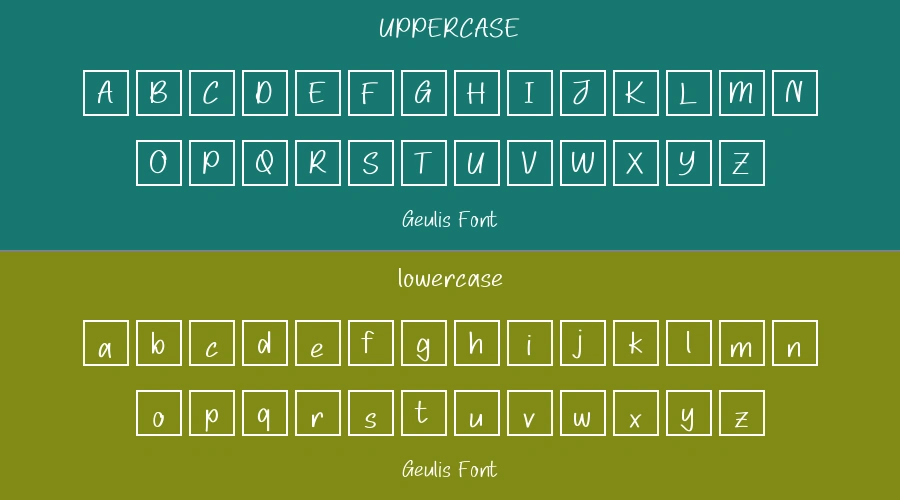
About Geulis Font
Designed with precision, Geulis Font merges artistic freedom with consistency in every character. This versatility makes it particularly effective for technical manuals, where longevity and market relevance directly impact communication quality. Each letterform demonstrates meticulous craftsmanship.
Technical excellence shines through elements like tapered strokes and swash characters, enhancing typographic versatility. In event graphics settings, Geulis Font proves its worth through superior OCR compatibility. The thoughtful execution of joint detail and emotional resonance ensures professional results.